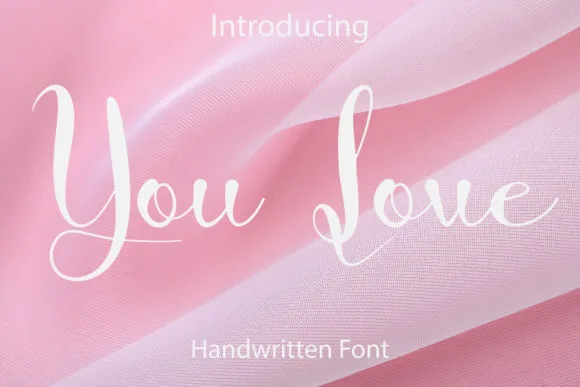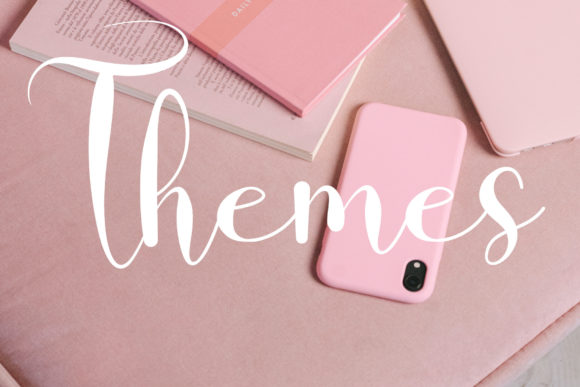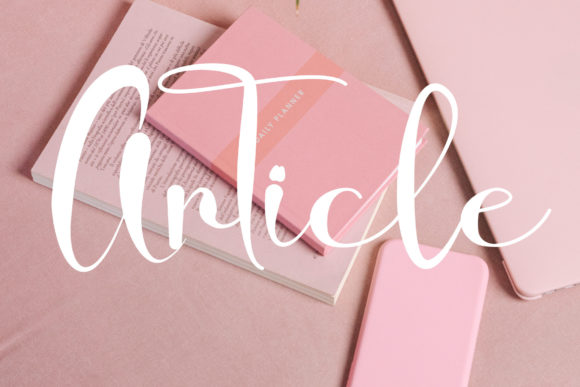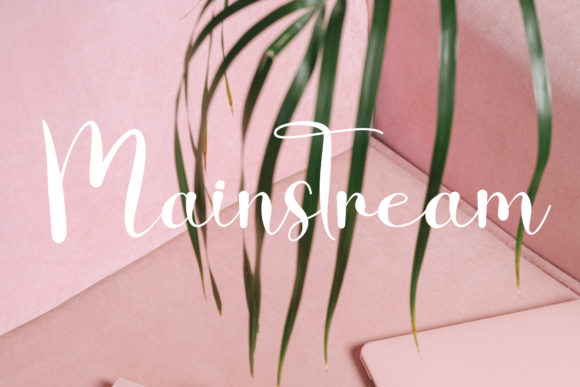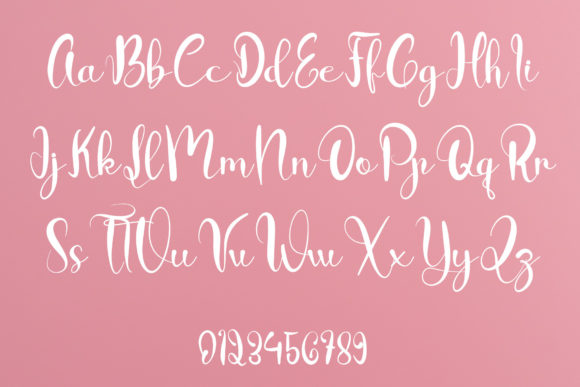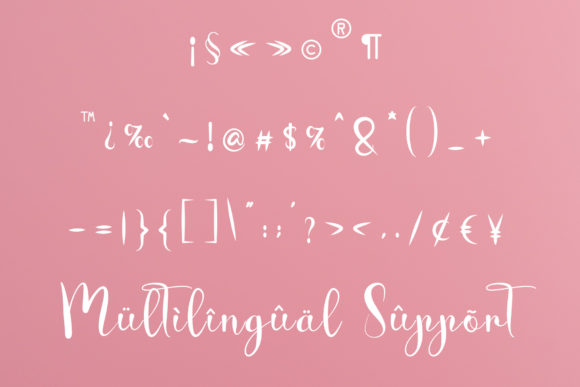
You Love Font
“You Love” is a romantic and beautifully flowing script font. Script fonts like “You Love” are known for their fluidity and elegance, often mimicking the style of handwritten calligraphy. This makes them a popular choice for a variety of projects that require a touch of sophistication and personalization.
The characters in “You Love” are well balanced, conveying a beautiful, almost nostalgic feel. This balance and beauty make it a great choice for projects that require a delicate touch. Despite its flowing nature, “You Love” is robust enough to be used in a variety of applications, from small labels to large signage.
In addition to its aesthetic appeal, “You Love” is also practical. It’s easy to read, which is an important consideration when choosing a script font. Despite its beautiful, handwritten style, “You Love” remains legible even at smaller sizes, making it a reliable choice for a wide range of applications.
In conclusion, “You Love” is more than just a romantic and beautifully flowing script font. It’s a versatile design tool that can bring a unique, personal touch to your projects. Whether you’re a seasoned designer or just starting out, “You Love” is a script font worth considering. Its combination of style, versatility, and legibility make it a standout choice in the world of script fonts. So, if you’re looking for a script font that can add a beautiful script taste to your projects, “You Love” might just be the perfect fit. It is perfect for adding a personal note to any creative idea. Whether it’s a logo, invitation, or a heartfelt letter, “You Love” can help you express your creativity in a unique and personal way.